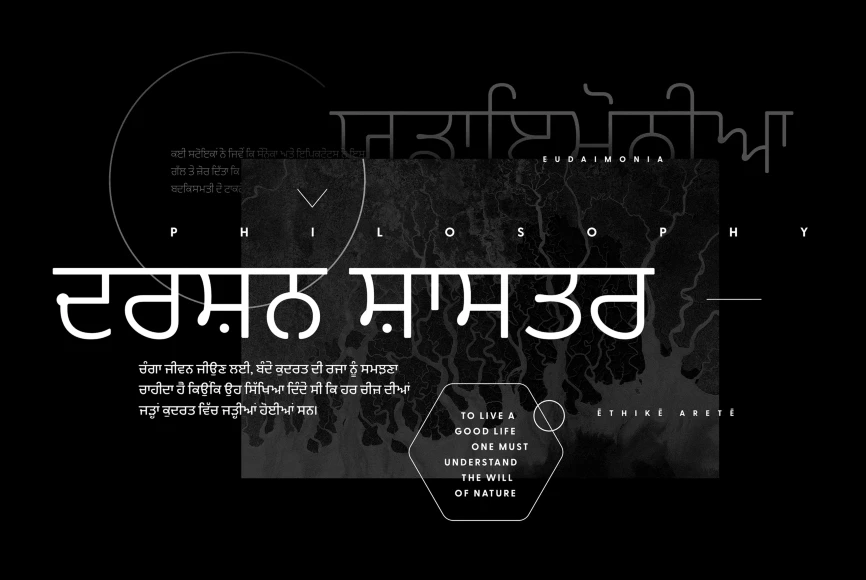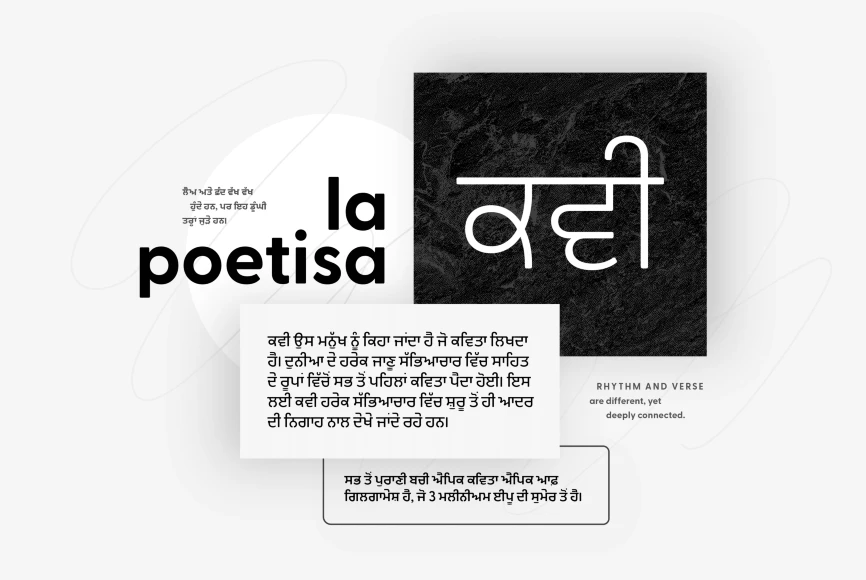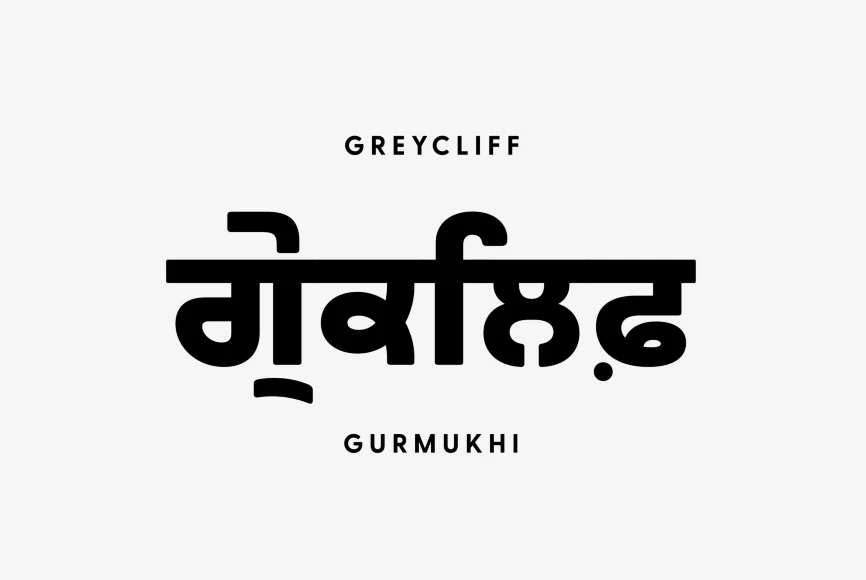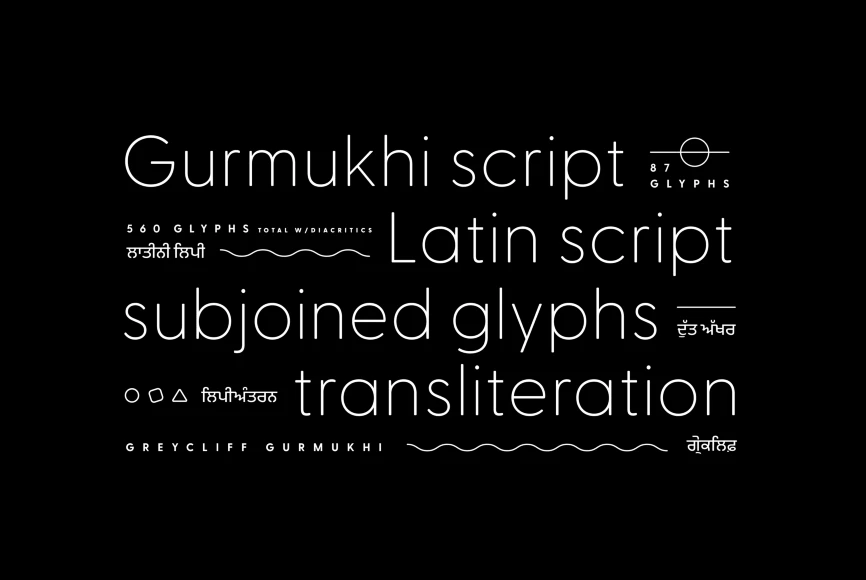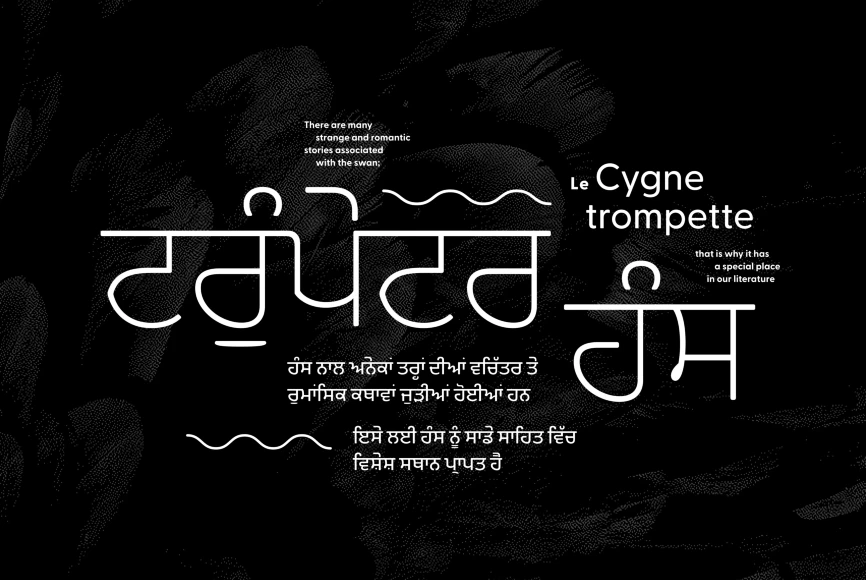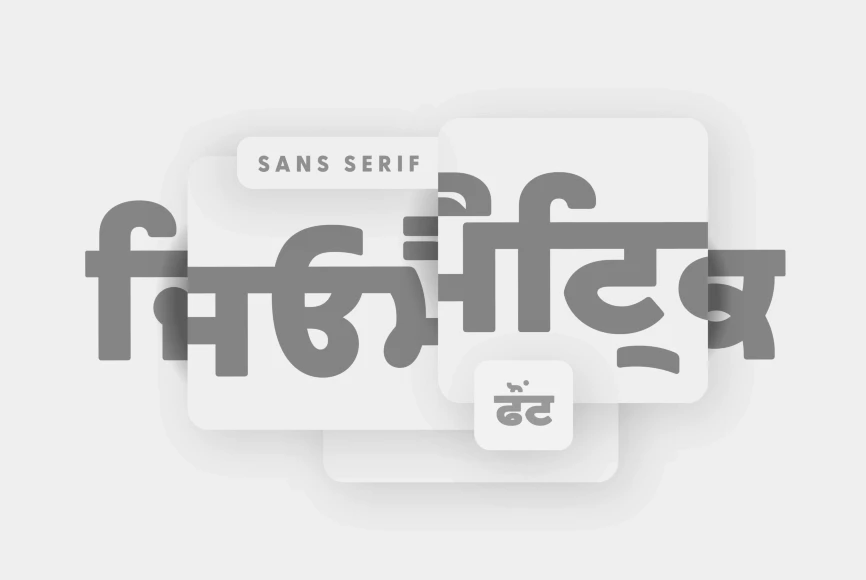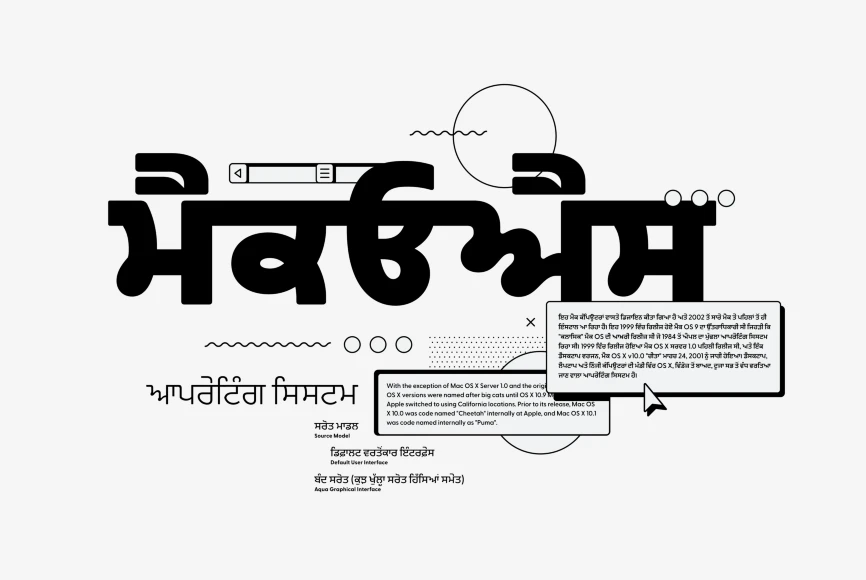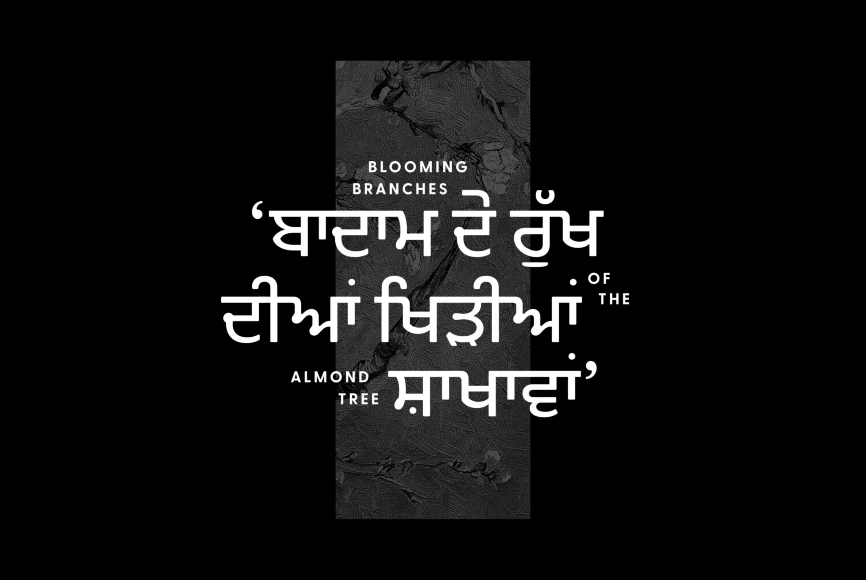
Greycliff Gurmukhi
Rugged, hearty, and warm, the Greycliff CF series is a versatile font family. Covering both Gurmukhi and Latin scripts, Greycliff Gurmukhi CF allows for visually cohesive multiple-script applications in a beautiful geometric sans serif font family. Diacritics and subscript letters are included for Panjabi language support and compatibility. The geometric, near-monoline construction lends a classic durability, tempered by softened edges and vibrant shapes.